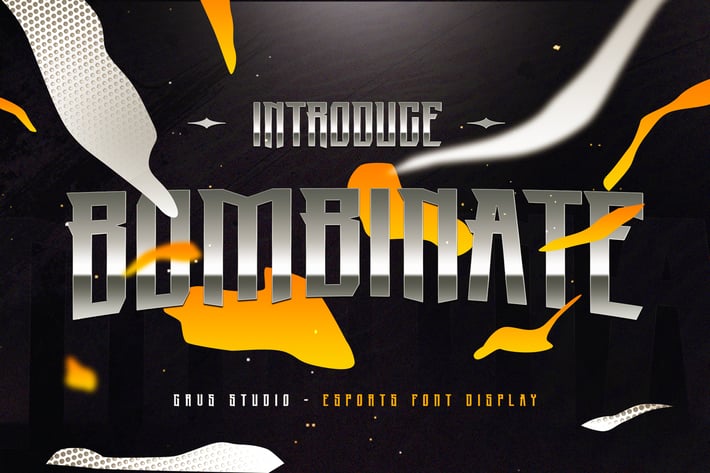
Bombinate eSport Font
GRVS Bombinate eSport Font is our new item that suitable for your team logo or community logo.
Great for Logo, Sticker, Jersey, Invitation Card, Brochure, etc.